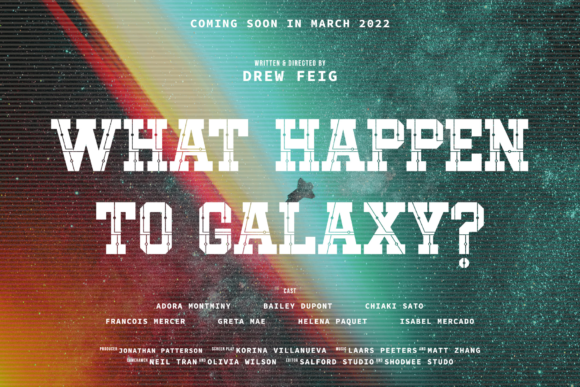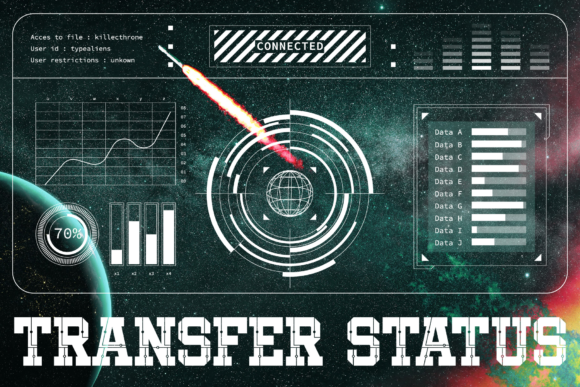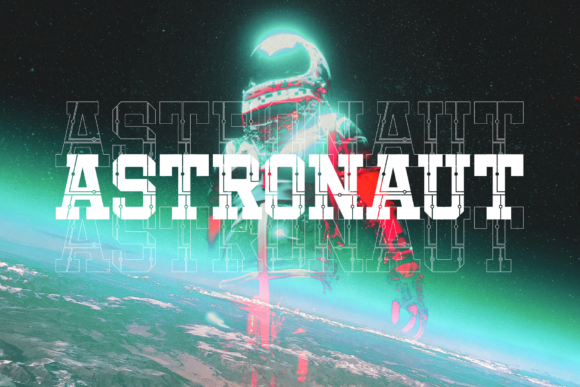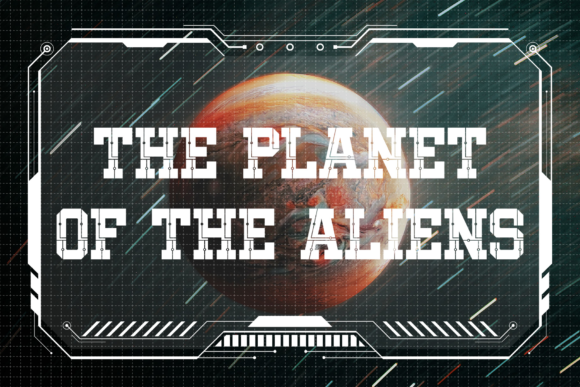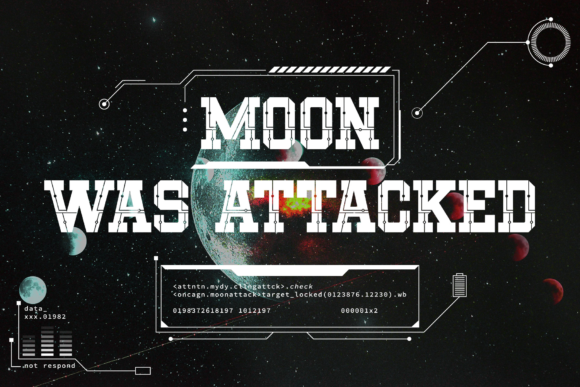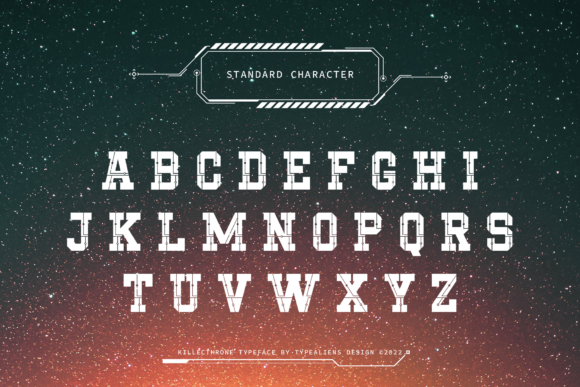
Introduction to Killecthrone Font
Killecthrone is a an assertive and bold display font based on the classic college style font.
It is suitable for any branding project like logos, t-shirt printing, sport designs, and more It will look outstanding in a wide range of contexts.
Key Features of Killecthrone Font